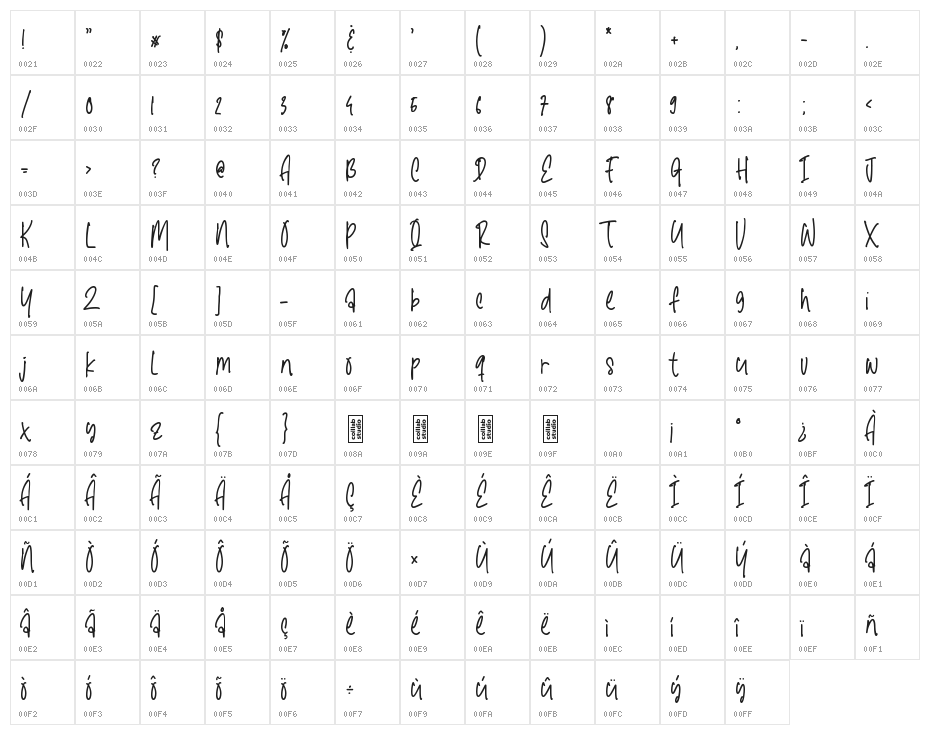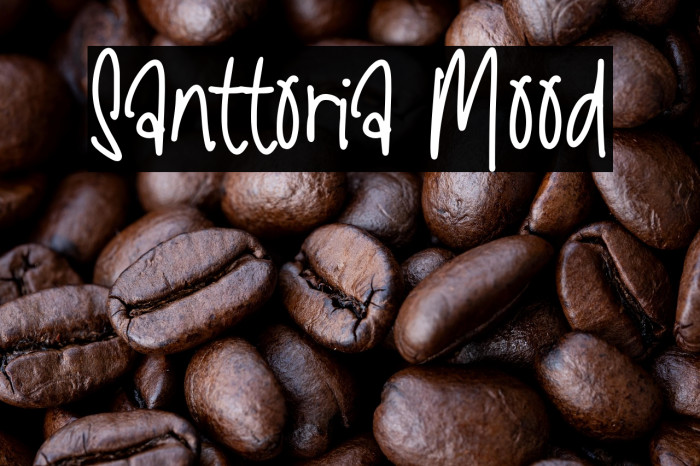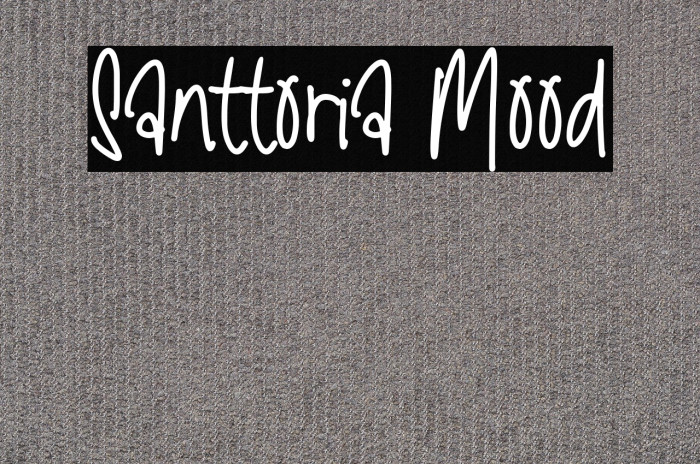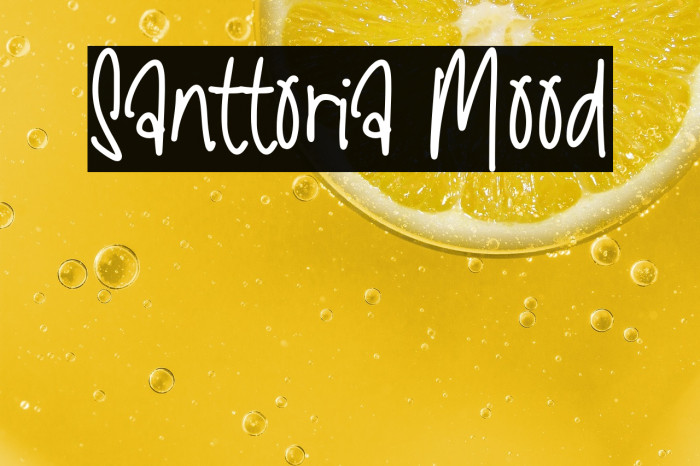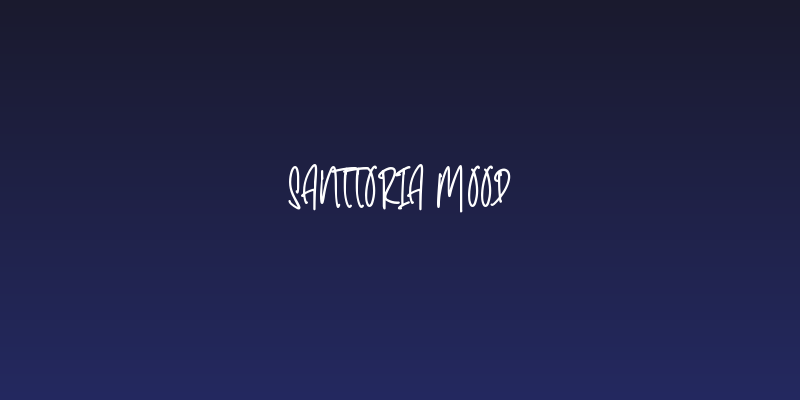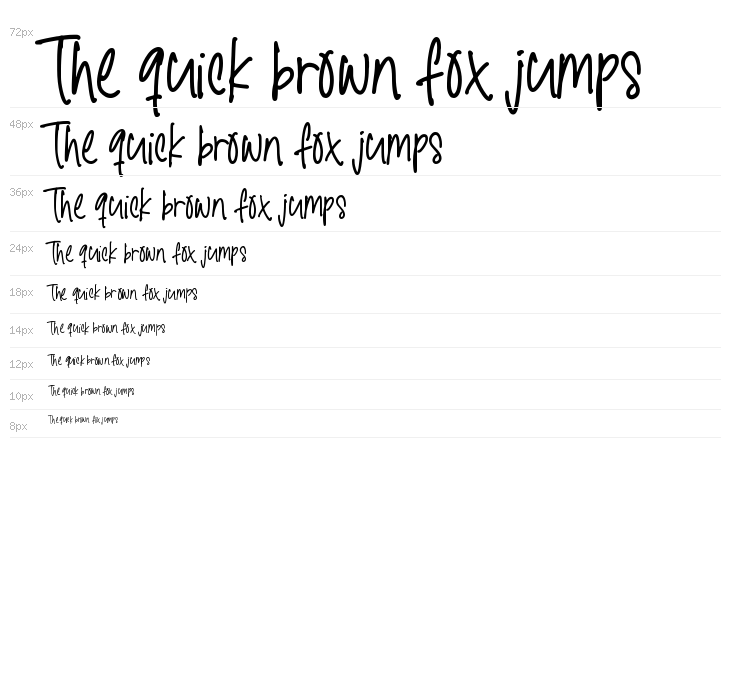
Santtoria Mood Font
Santtoria Mood Description
This font features a playful and casual handwritten style, characterized by its fluid and organic letterforms. The uppercase and lowercase letters exhibit a consistent rhythm, with slightly exaggerated curves and varying stroke widths that add a dynamic feel. The numerals and special characters maintain the same lively aesthetic, making the font versatile for various creative applications. Its informal and approachable appearance makes it suitable for projects that require a personal touch or a sense of whimsy.
| Proposed Projects | Ideal for greeting cards, invitations, personal branding, social media graphics, and children's book illustrations. |